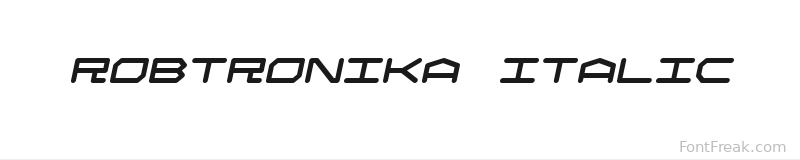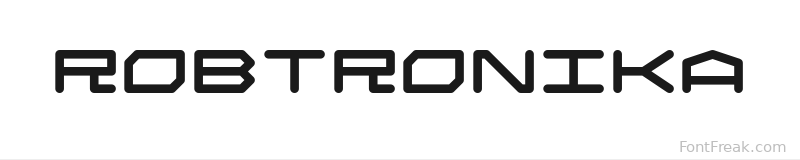
Robtronika
Robtronika Italic
Robtronika, designed by GGBot, is a striking display font that captures the essence of modern digital aesthetics while retaining a playful edge. This font features bold, geometric shapes with a strong sans-serif structure, making it stand out in any design project. The stroke weight is consistently thick, providing a solid presence, while the smooth curves and clean lines create a sense of balance. The spacing is meticulously crafted, ensuring that each letter stands out without crowding its neighbors, resulting in an overall harmonious appearance.
Robtronika is particularly well-suited for a variety of creative applications. Its unique style makes it an excellent choice for futuristic movie posters, where it can convey a sense of adventure and excitement. Additionally, the font works beautifully for tech-related branding, giving a contemporary feel that resonates with modern audiences. Graphic designers will appreciate its versatility for web design, where it can serve as a captivating headline typeface. Small business owners looking to create eye-catching advertisements or product packaging will find Robtronika to be a compelling option, bringing a distinctive flair to their marketing materials. Content creators can also leverage this font for social media graphics or video titles, enhancing visual storytelling.
The Robtronika font free download offers an accessible way for designers and creators to experiment with this innovative typeface without any financial commitment. What sets Robtronika apart is its ability to blend a bold, modern aesthetic with usability across various platforms. This font not only captures attention but also embodies a sense of creativity that can elevate any project. Whether you’re designing for print or digital media, Robtronika is a fantastic choice that promises to leave a lasting impression.